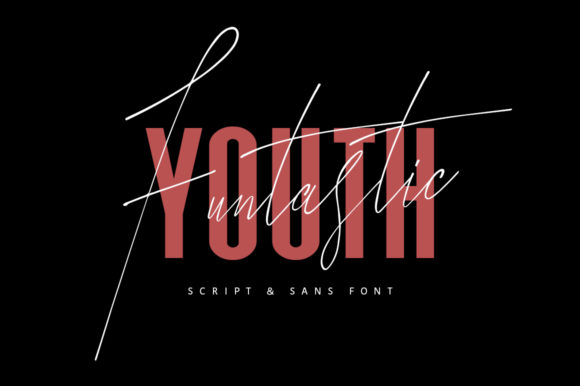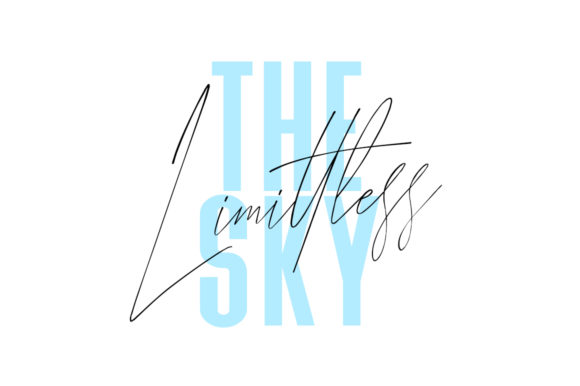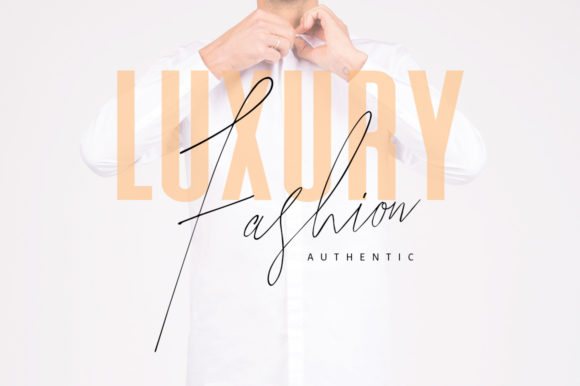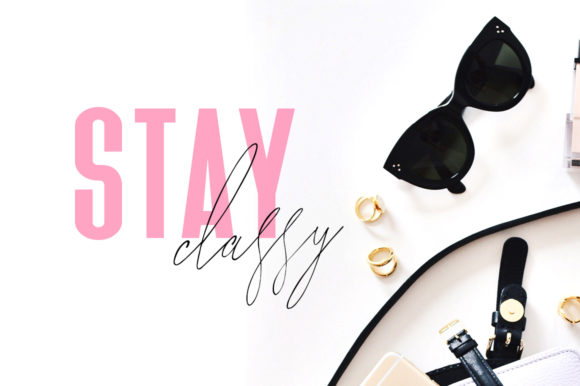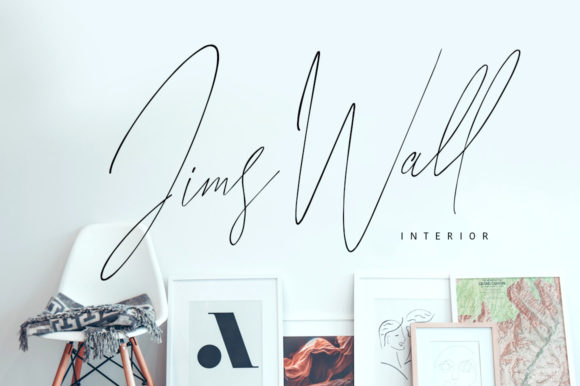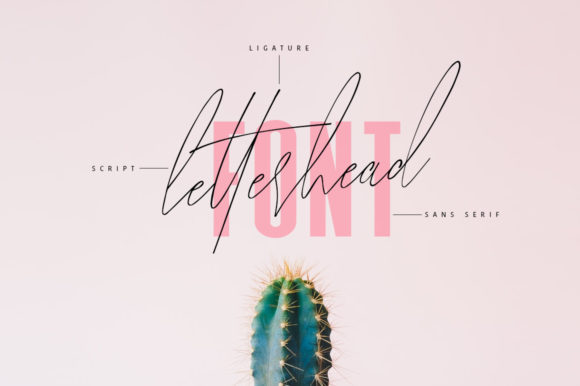
Funtastic Youth Duo Font
Funtastic Youth is an incredible duo font. It perfectly matches a sans serif with a script. Combine them and give a versatile look to your designs!